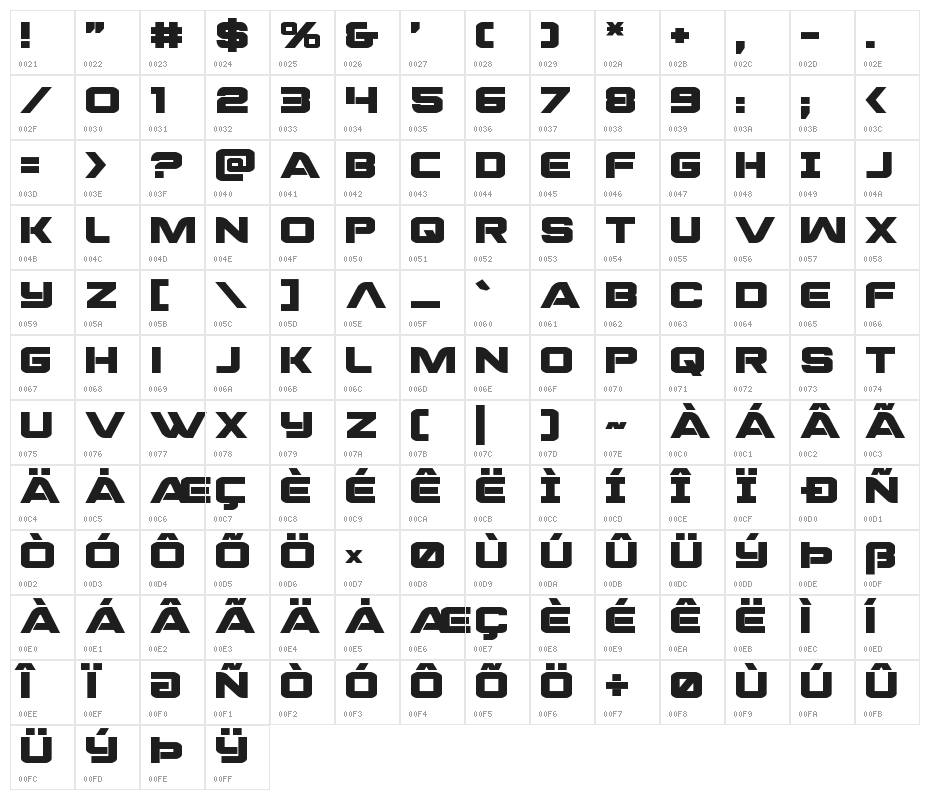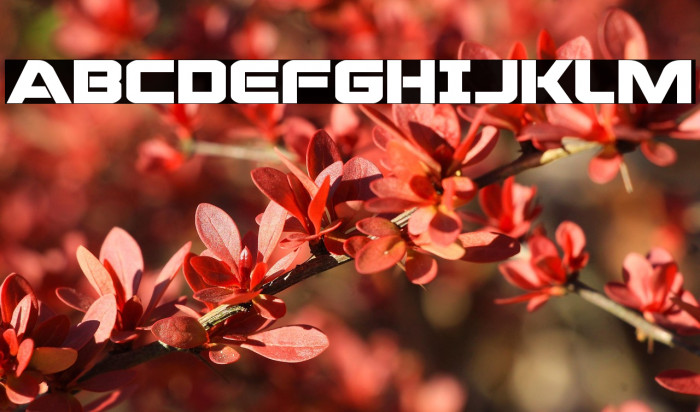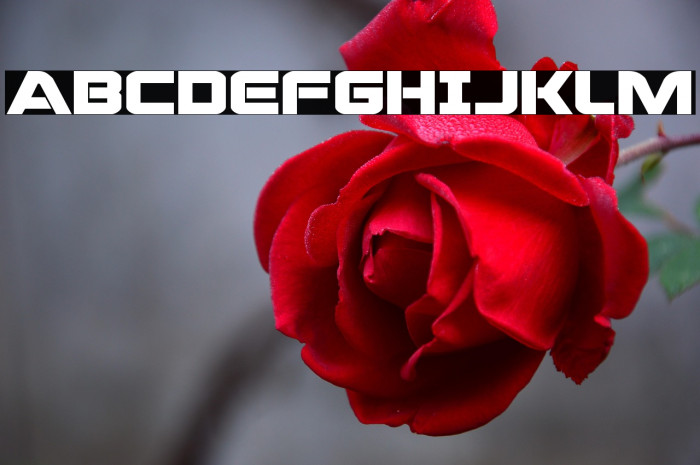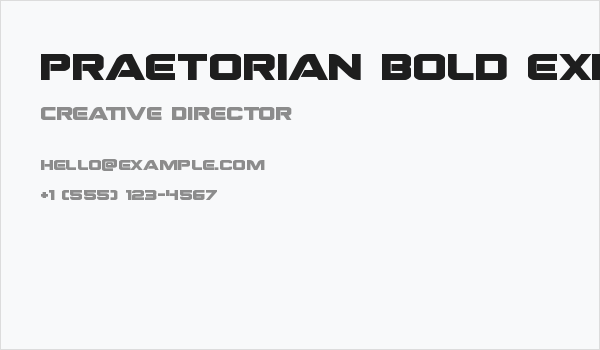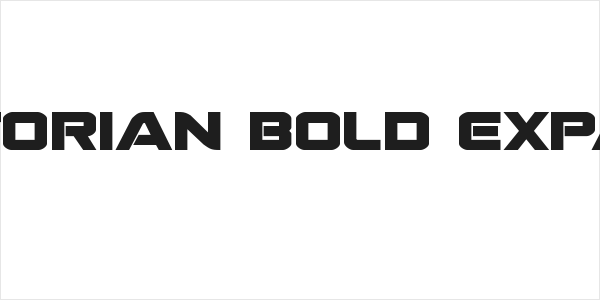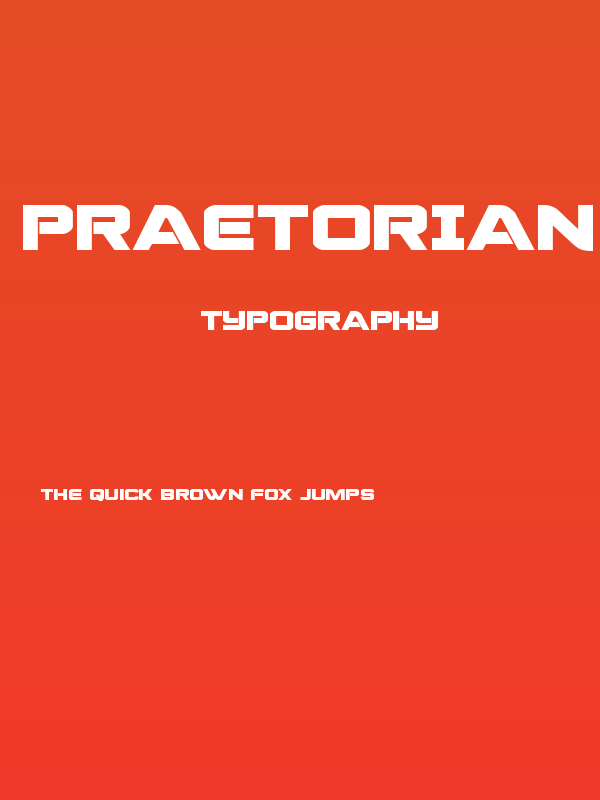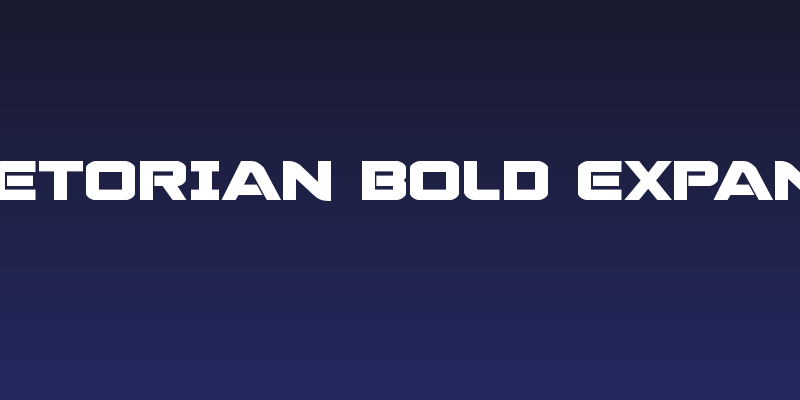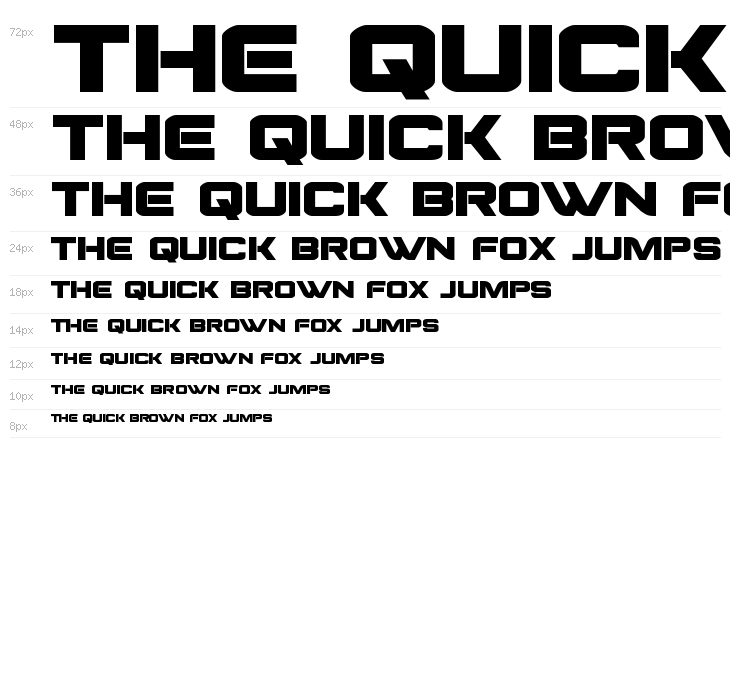
Praetorian Bold Expanded Font
Praetorian Bold Expanded Description
This font features a bold and expanded style with strong geometric shapes and a modern aesthetic. The characters are wide and have a commanding presence, making them ideal for impactful headlines and attention-grabbing designs. The uppercase and lowercase letters maintain a consistent weight, contributing to a cohesive look. The numbers and special characters are designed with the same boldness, ensuring uniformity across all text elements. The font's expanded width allows for excellent readability, even at smaller sizes, while the bold strokes provide a high contrast that enhances visibility.
| Proposed Projects | Ideal for branding, posters, headlines, and any design requiring a strong visual impact. |